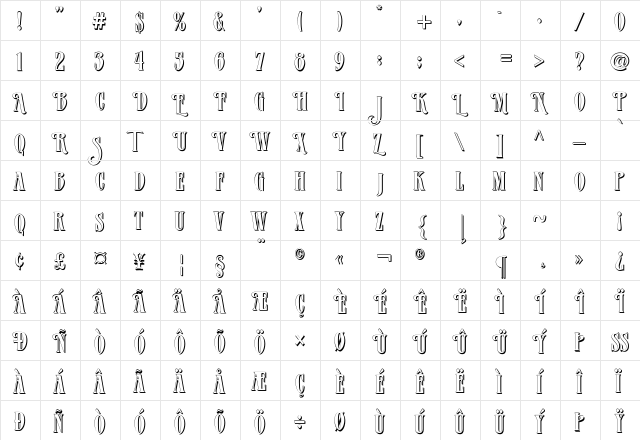
Verve Shadow Alternate Regular
Design Context for Verve Shadow Alternate Typeface
Verve Shadow Alternate brings ornamental detail and strong personality to headlines and identities, where visual impact matters more than quiet functionality.
Font Pairing: Pair with a clean neutral sans-serif for body copy to let Verve Shadow Alternate's character lead without overwhelming the composition.
Pro Tip: Use Verve Shadow Alternate exclusively at display sizes — it was designed to be seen, not read at length. Let a neutral companion handle body copy.